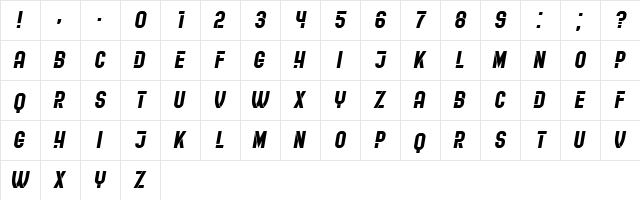
Restaurant Menu Book Regular
Design Context for Restaurant Menu Book Typeface
Restaurant Menu Book takes a measured approach to typography — its balanced proportions and neutral character make it a reliable workhorse for both digital and print work.